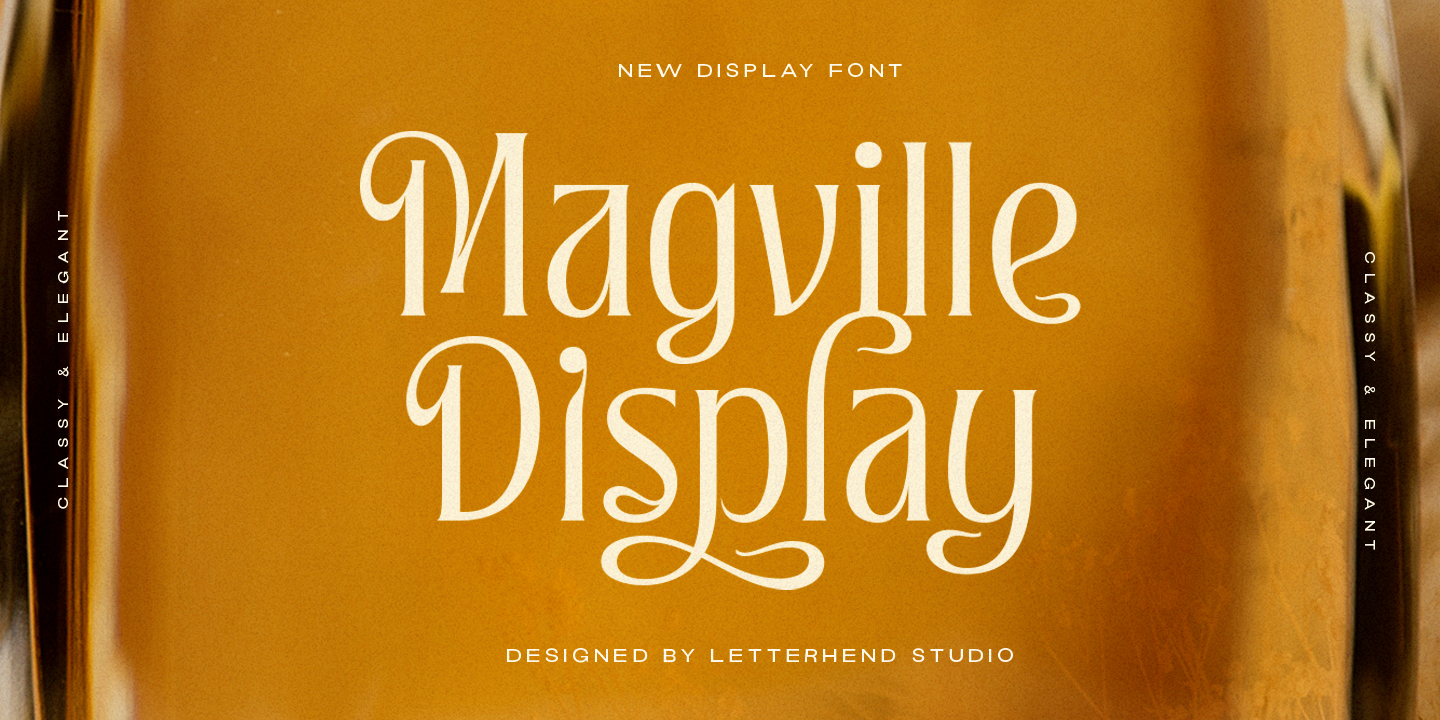
Magville
Designed by Hendry Juanda, Magville is a display sans font family published by Letterhend Studio.
Magville Display offers versatile simplicity in its clean and elegance  typeface adds a sophisticated twist to your typographic looks. Making it a perfect choice for projects seeking an element of artistic expressiveness. This font perfectly made to be applied especially in logo, and the other various formal forms such as invitations, labels, logos, magazines, books, greeting / wedding cards, packaging, fashion, make up, stationery, novels, labels or any type of advertising purpose.